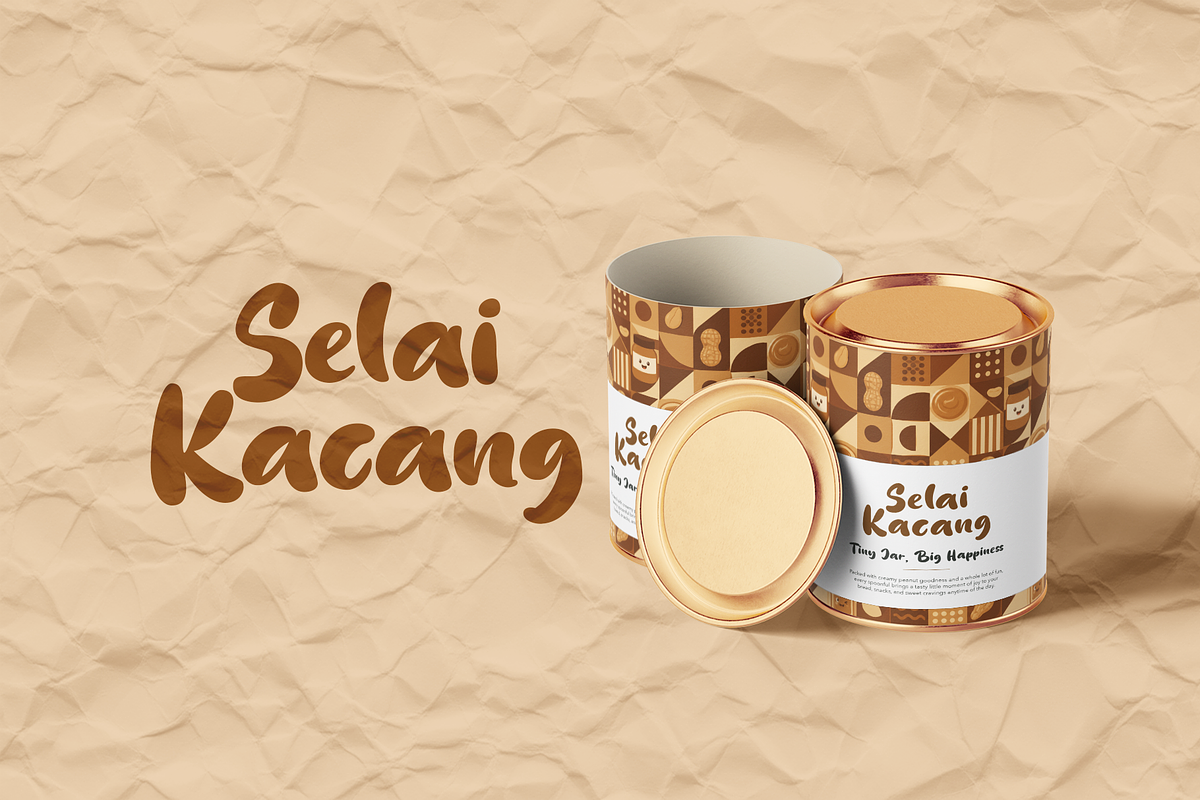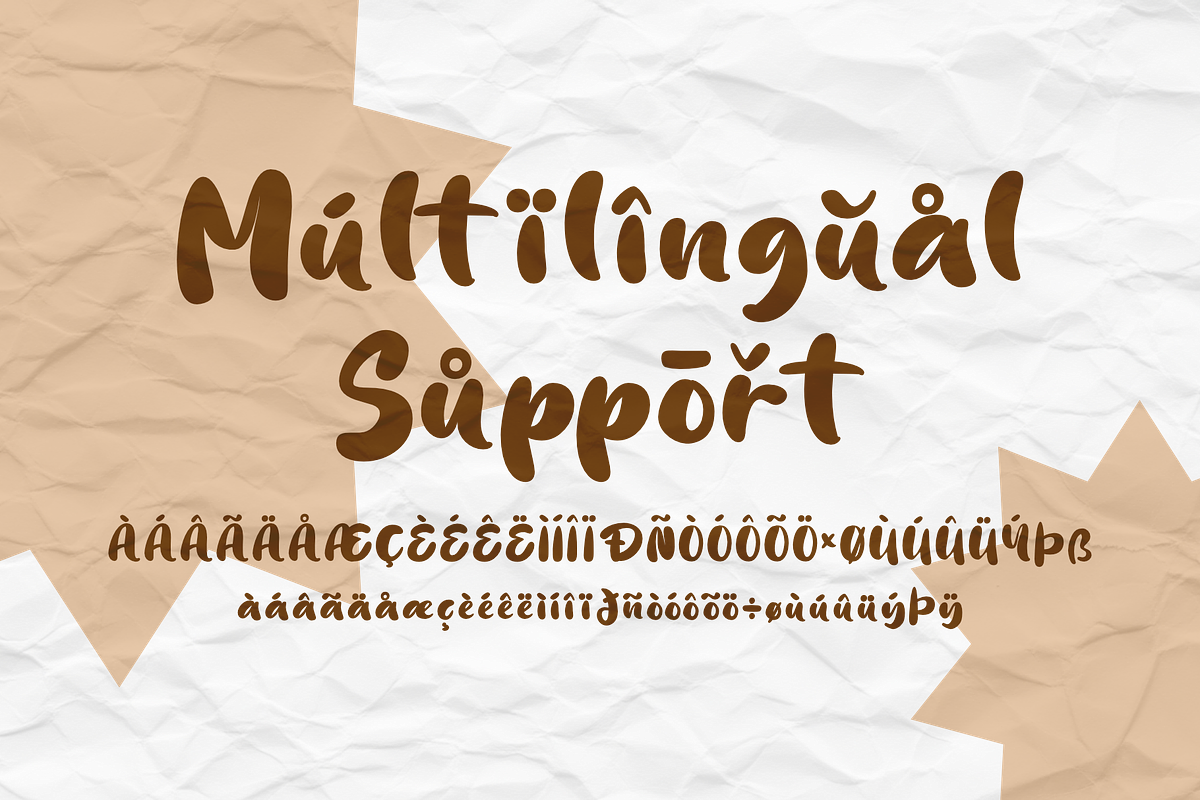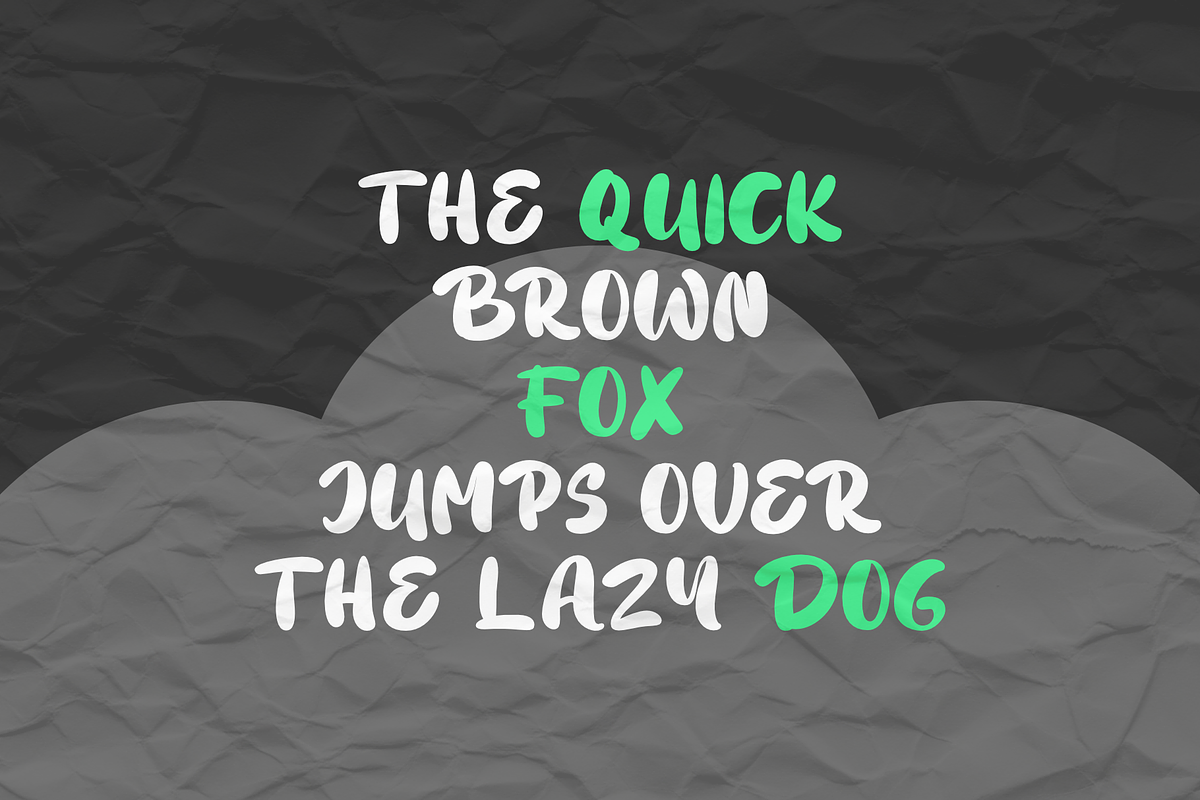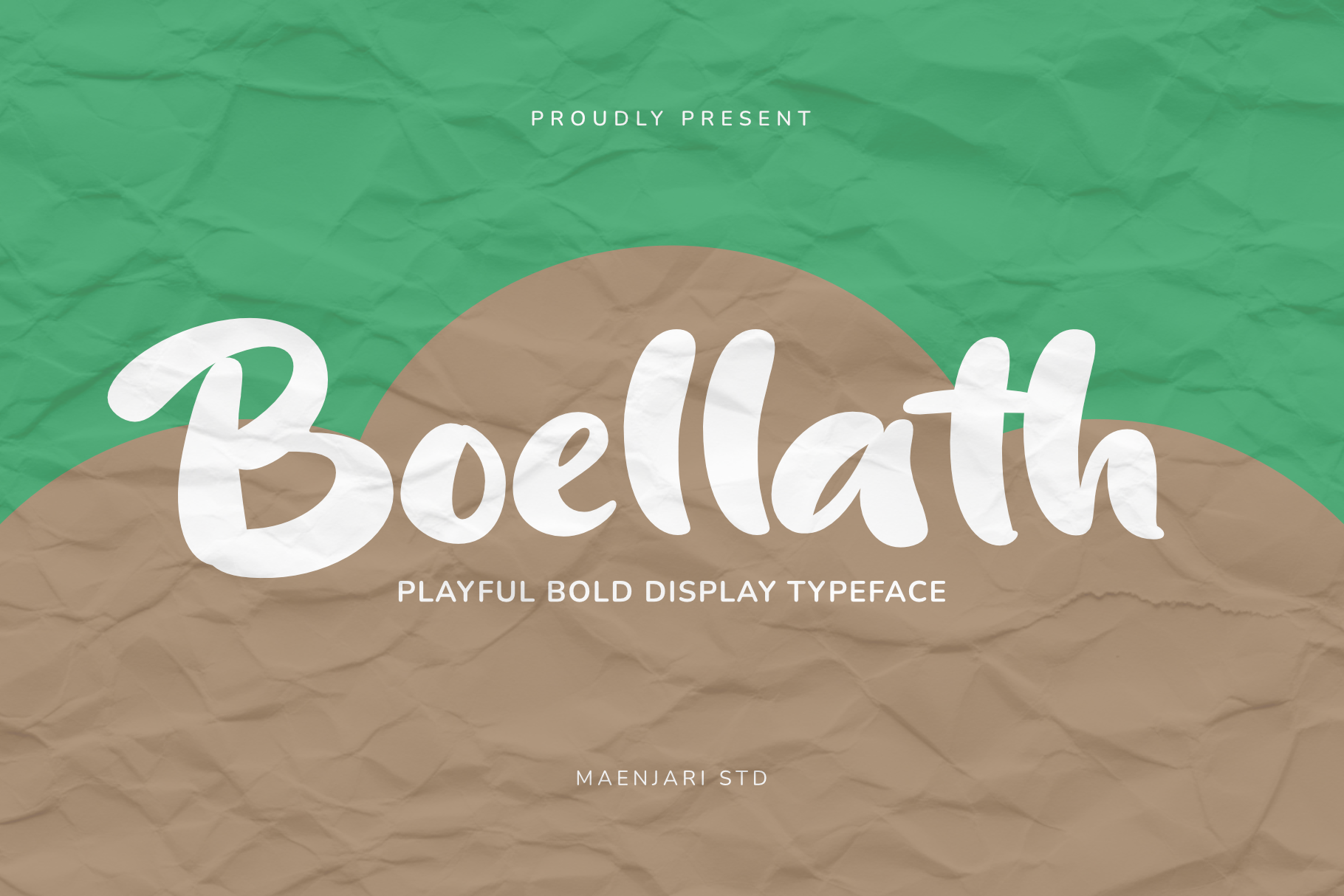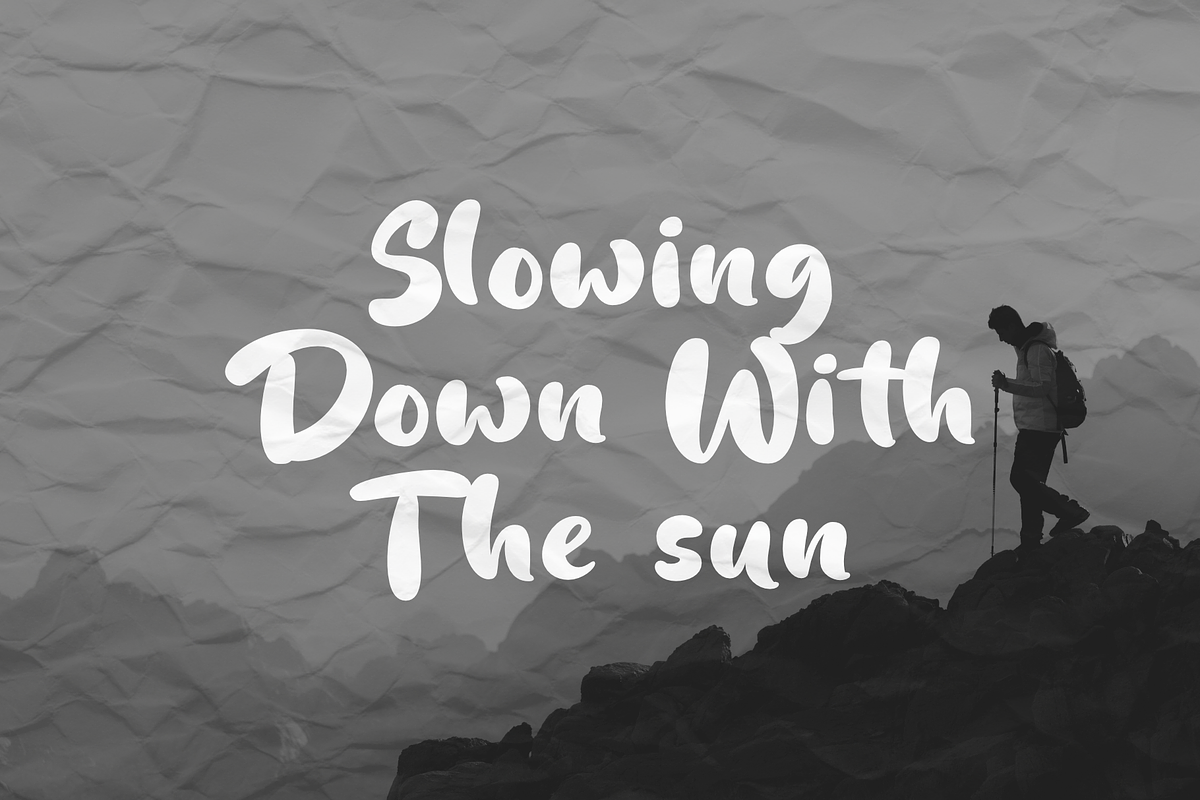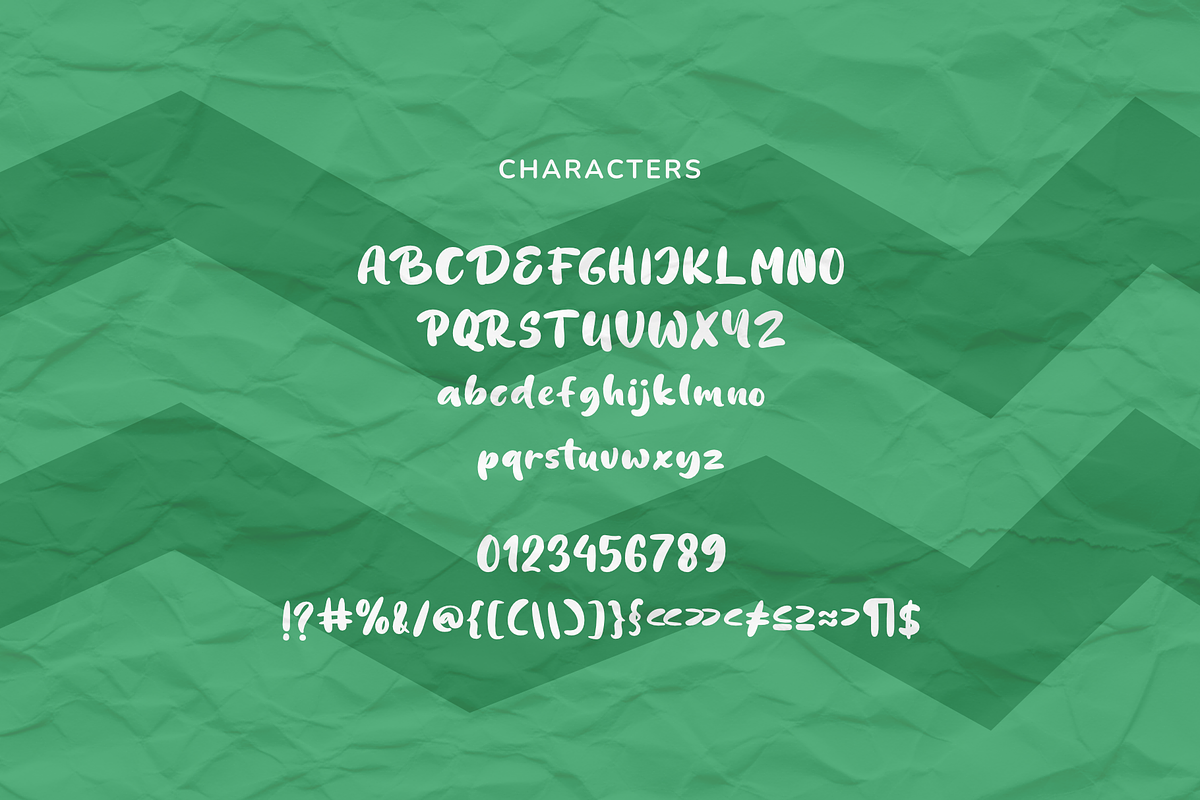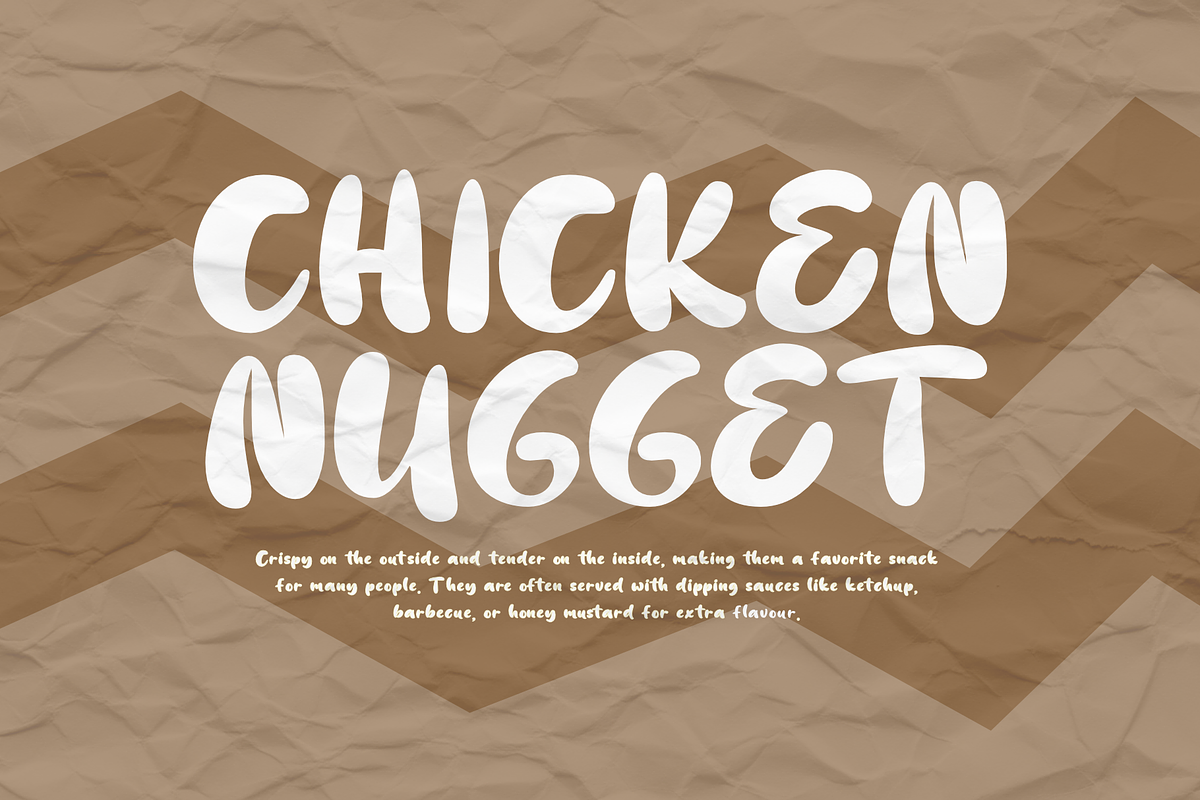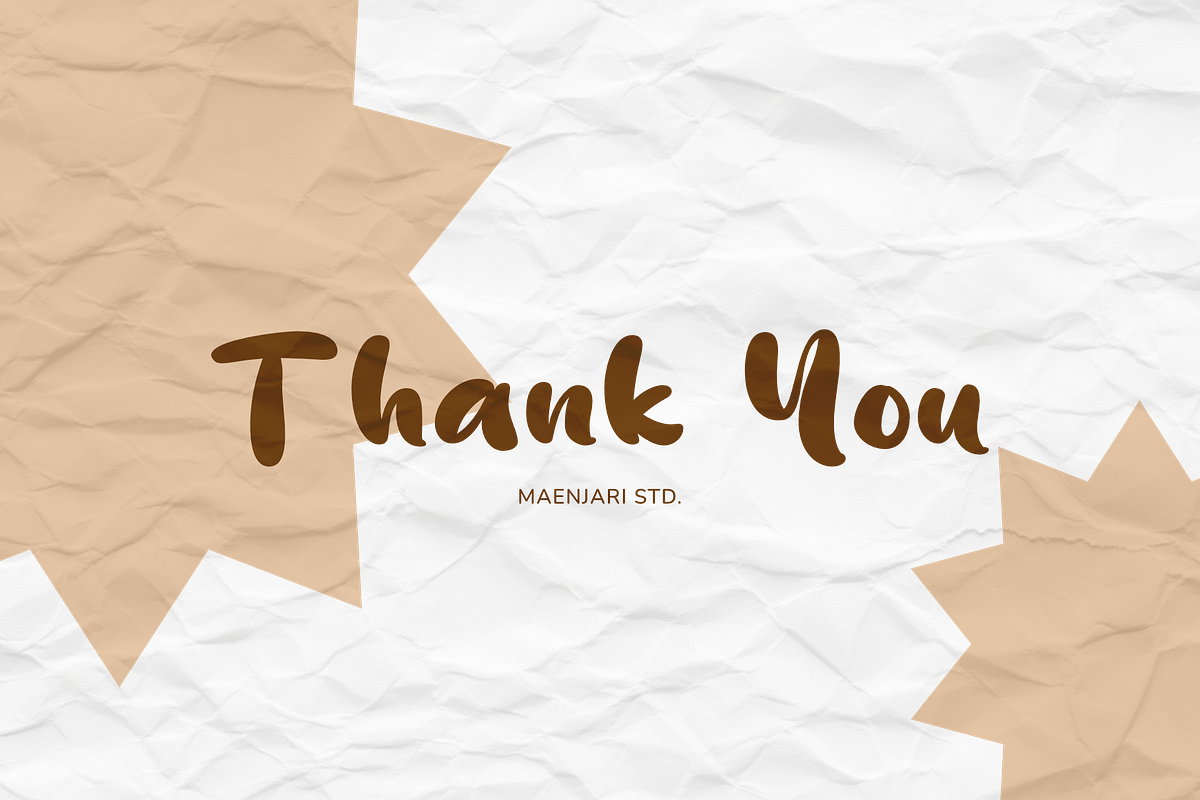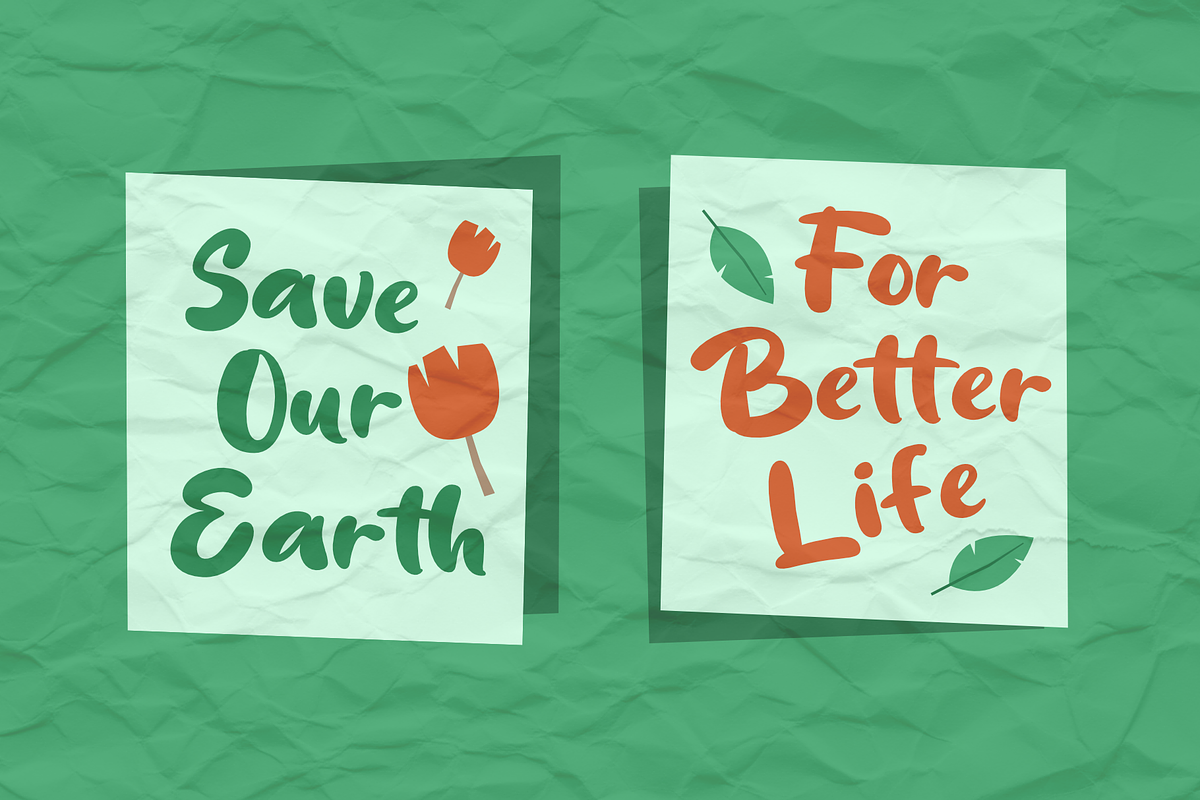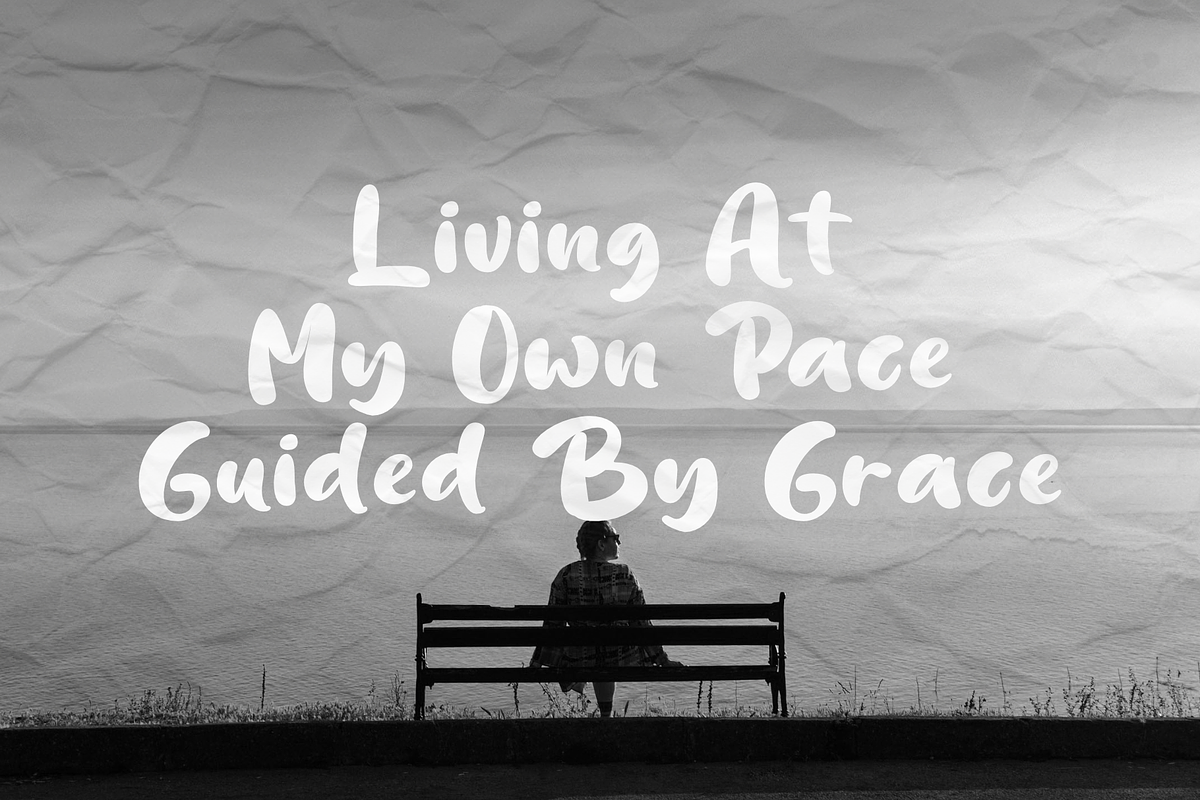
Boellath - Playful Bold Display Font
Spread Joy and Creativity with Boellath – A Playful Bold Display Font!
Give your designs an instant dose of happiness and organic charm with Boellath, a delightfully bubbly hand-drawn display typeface crafted by Maenjari Studio. With its thick, friendly visual weight and naturally soft, wavy lines, Boellath brings an authentic human touch that feels warm, welcoming, and incredibly fun.
This versatile font is a powerhouse for high-impact display layouts. Whether you are creating appetizing food packaging logos (like peanut butter or snacks), whimsical children's book titles, eco-friendly event posters, playful apparel lines, or inspirational social media quote graphics, Boellath ensures your message stands out with a smile.
Full Uppercase & Lowercase character sets
Clean numerals, comprehensive punctuation, and essential symbols
Extensive Multilingual support for global design reach
Smooth and solid vector outlines optimized for large-scale printing